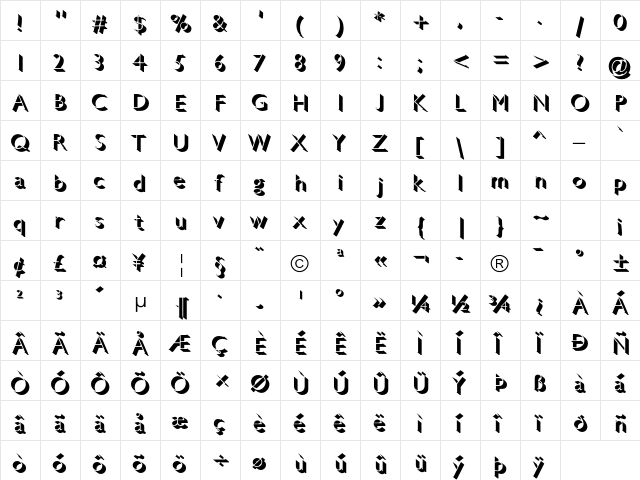
Gill Sans Shadowed MT Std Light
| Designer | Eric Gill |
Design Context for Gill Sans Shadowed MT Std Typeface
Gill Sans Shadowed MT Std brings ornamental detail and strong personality to headlines and identities, where visual impact matters more than quiet functionality. Its slender proportions lend an understated elegance to any composition.
Font Pairing: Pair with a clean neutral sans-serif for body copy to let Gill Sans Shadowed MT Std's character lead without overwhelming the composition.
Pro Tip: Use Gill Sans Shadowed MT Std exclusively at display sizes — it was designed to be seen, not read at length. Let a neutral companion handle body copy.